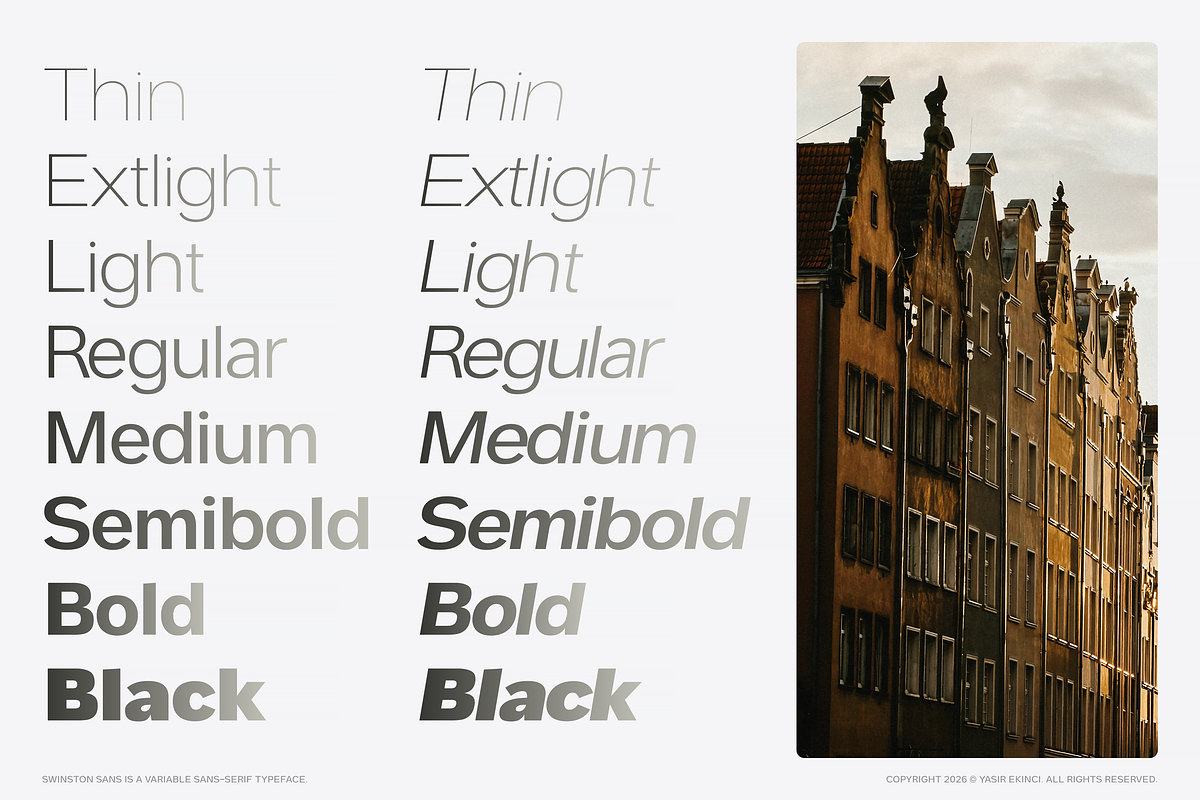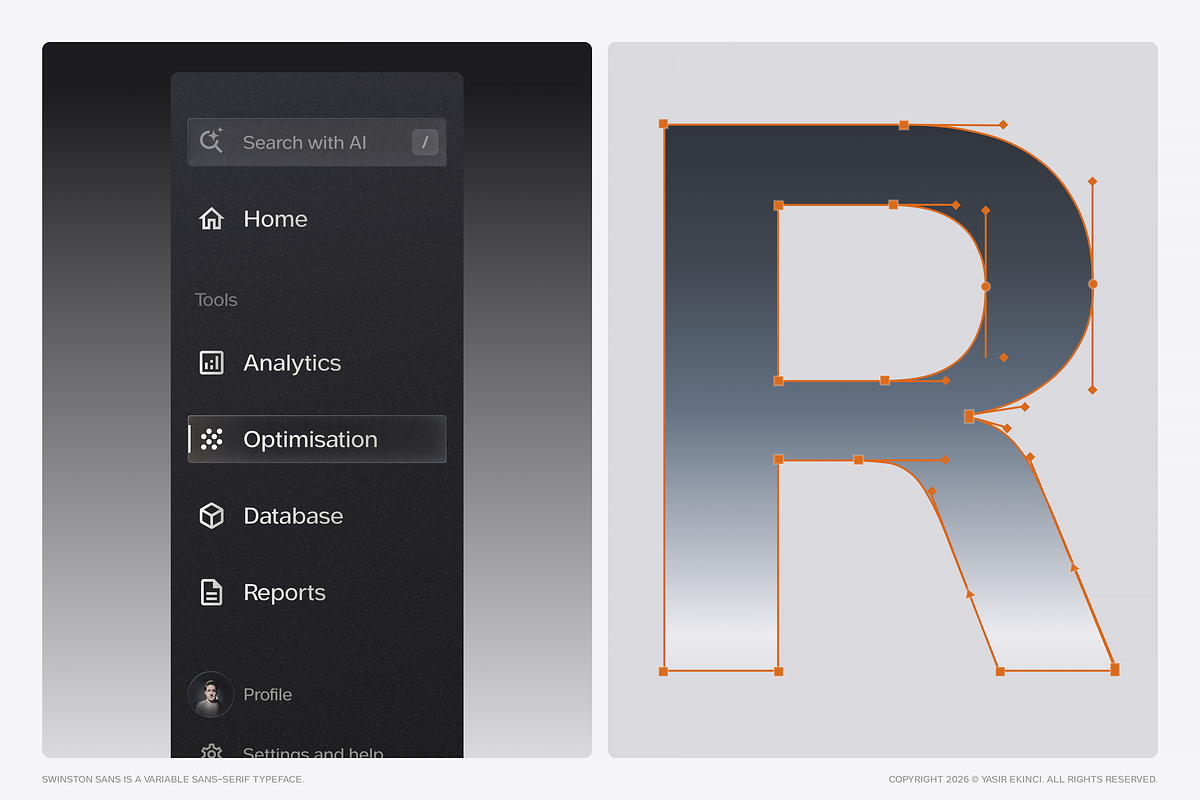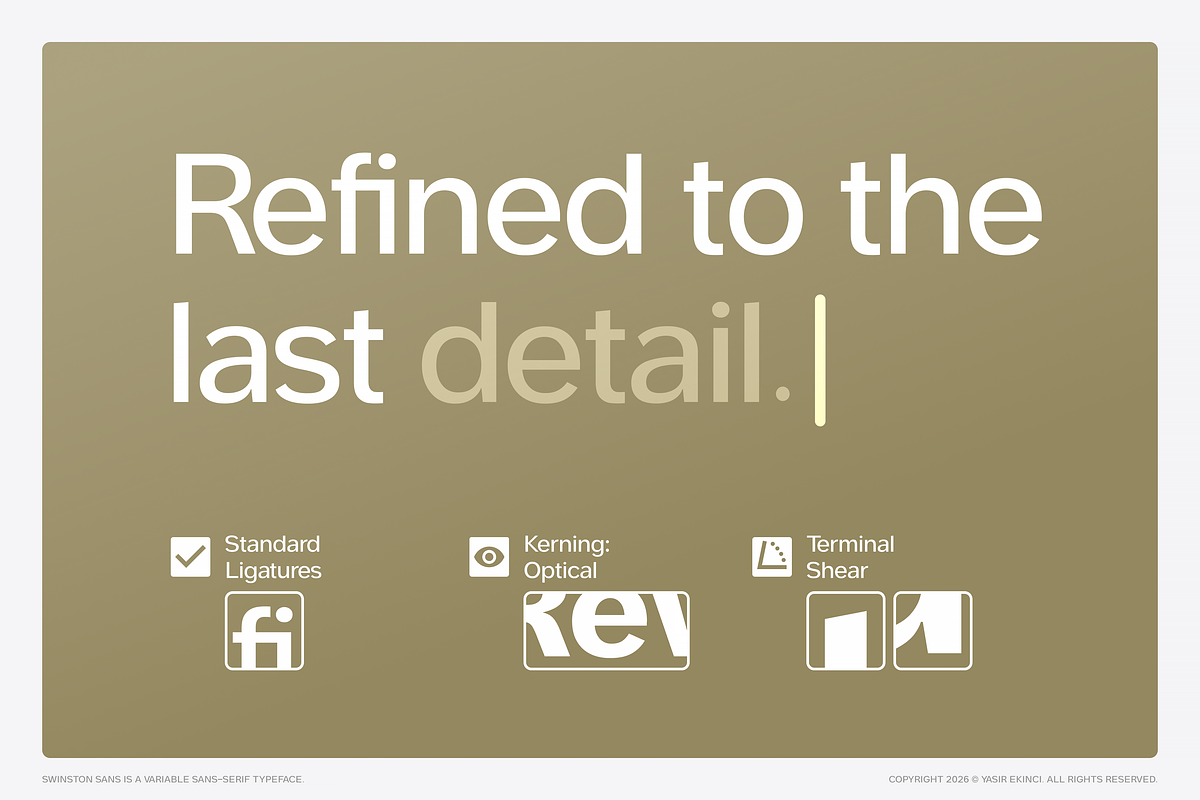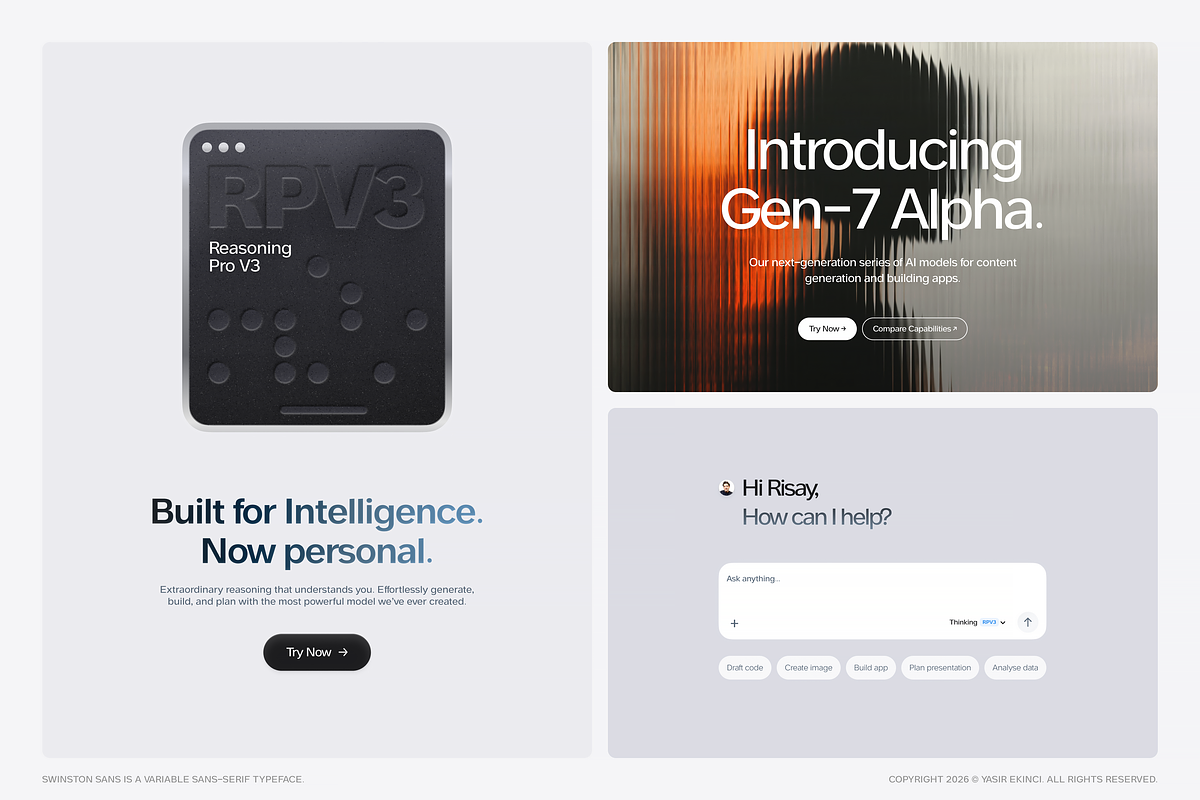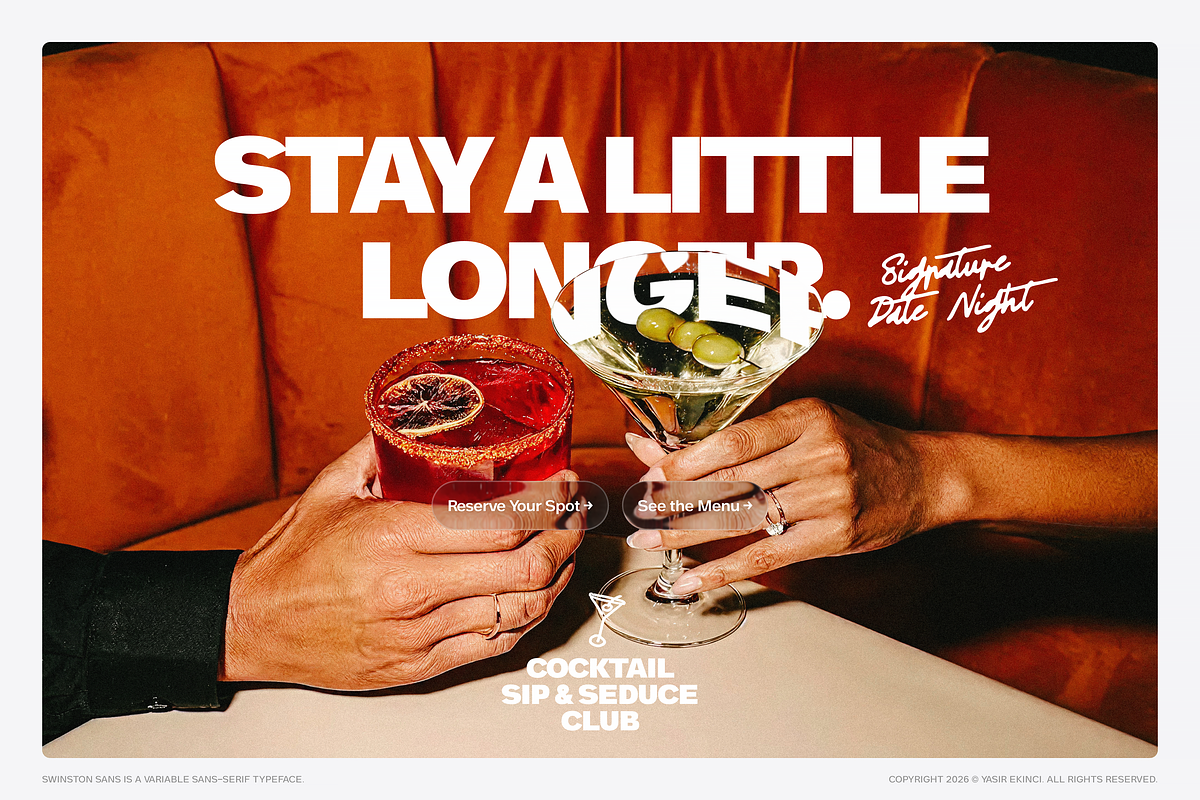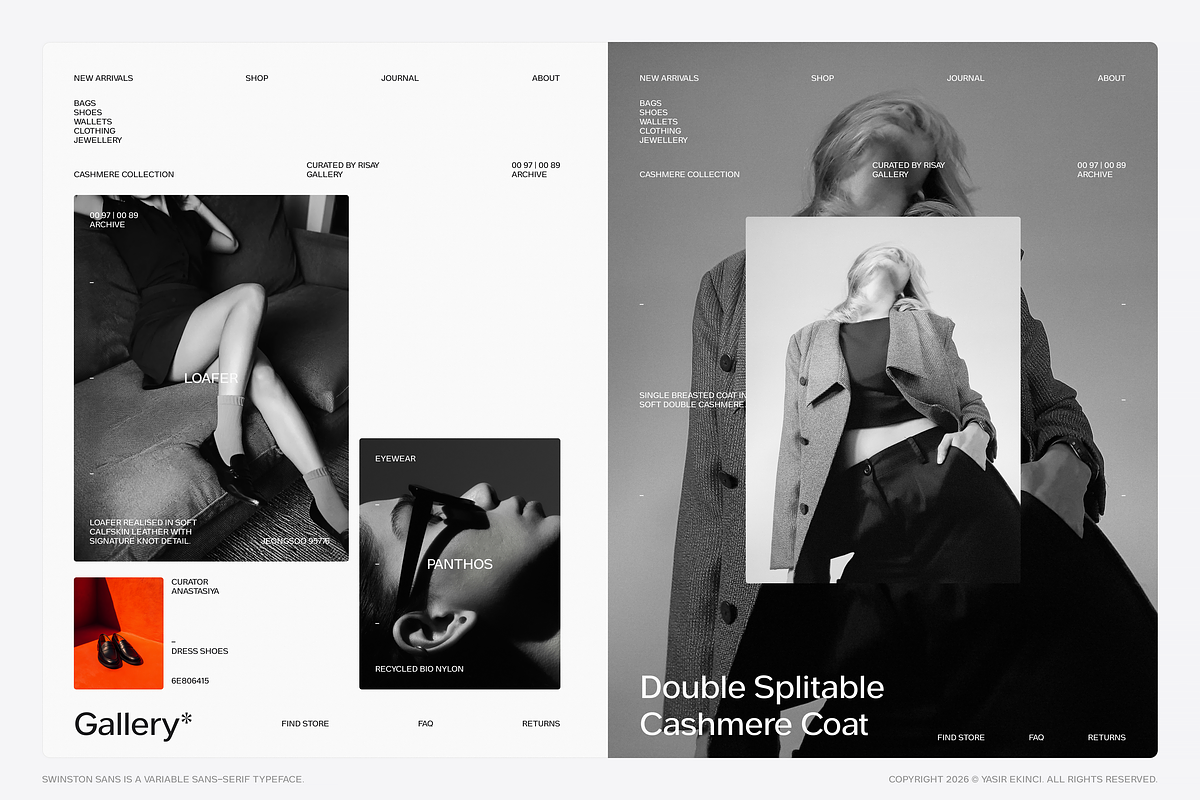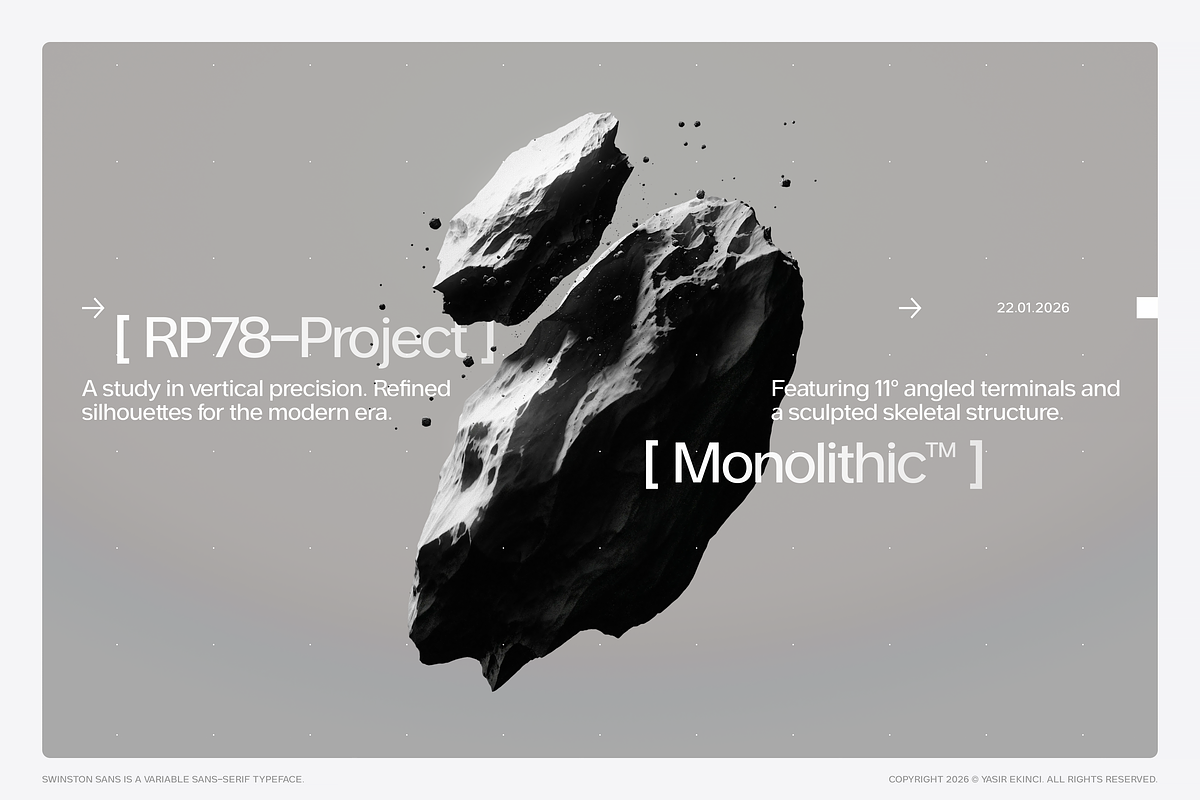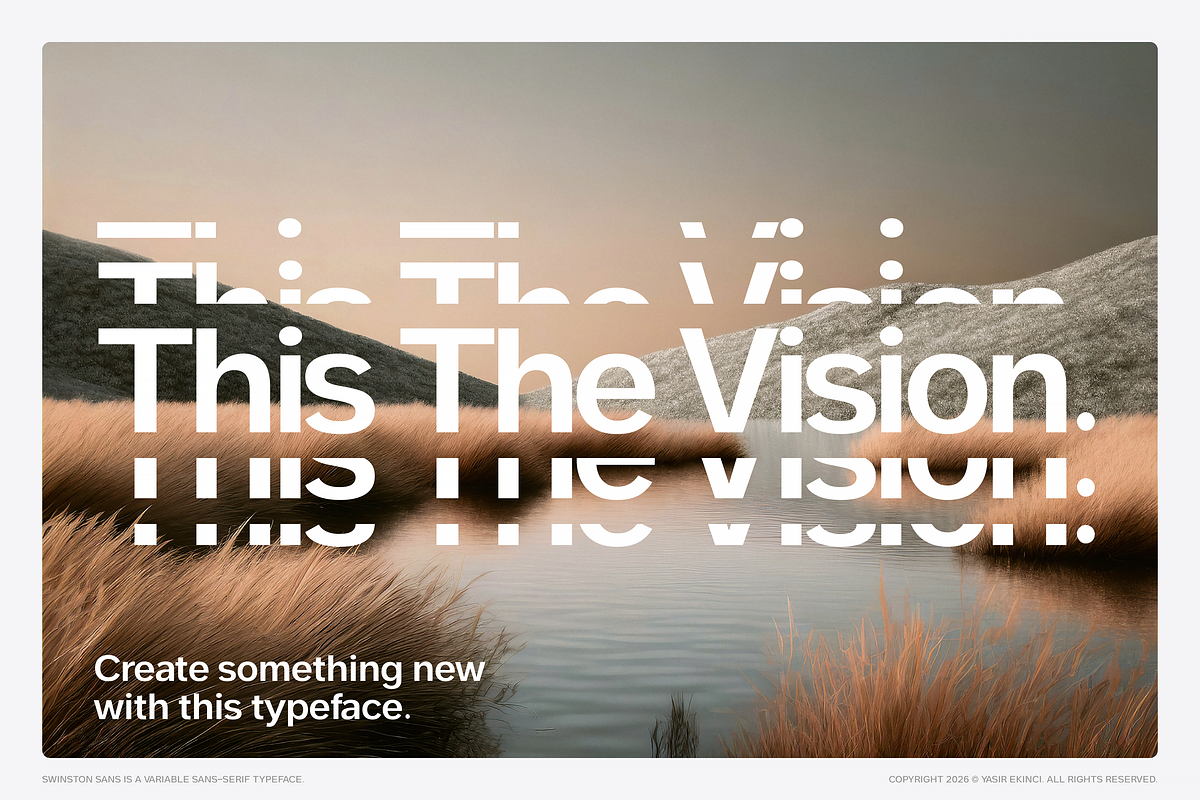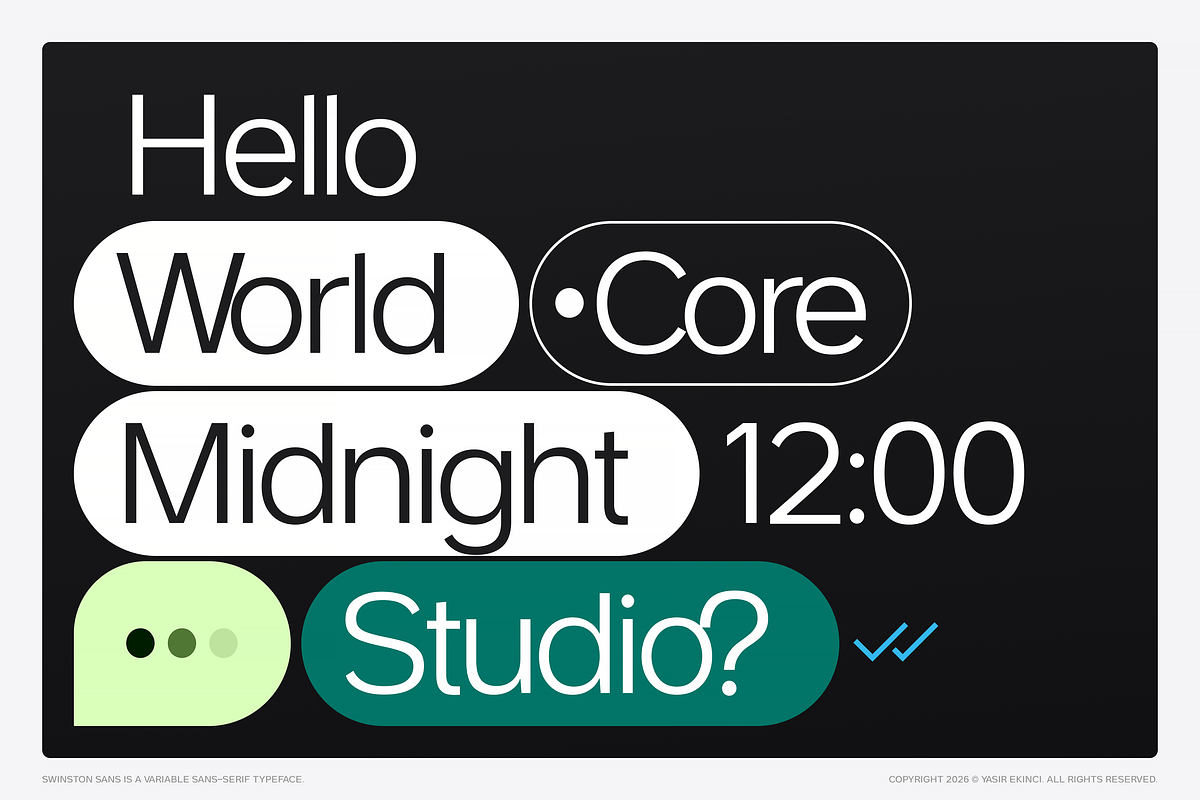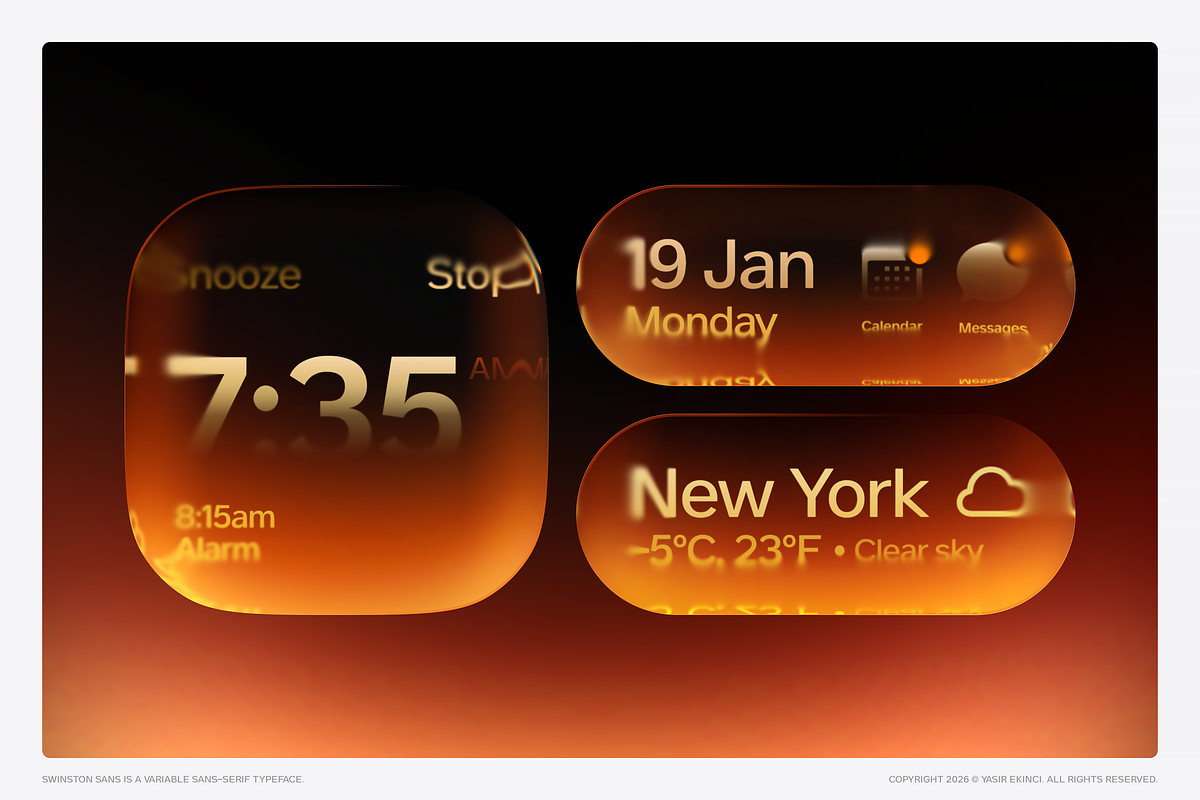
Swinston Sans Variable Typeface
The Typeface That Translates
In a digital landscape drowning in neutrality, how do you design a typeface that feels engineered enough for code, yet human enough for conversation? For the last decade, sans-serif typography has been dominated by invisibility. Fonts like Inter, Helvetica Now, and countless Neo-Grotesques have become the default language of digital design. They're competent. They're safe. They're everywhere. But as we enter the era of generative AI, spatial computing, and hyper-personalised digital experiences, "neutral" is no longer enough. We don't need fonts that disappear. We need fonts that translate. This is where Swinston Sans begins.
Origin Story: Three European Cities
Rotterdam — The Grid
The origin of Swinston Sans was found on a rainy Tuesday morning at a tram stop in Rotterdam. I became obsessed with the destination blinds of the RET tram lines—those stark, high-contrast signs that cut through grey fog to tell you exactly where you're going. Line E to Leidschenveen. Line 4 to Molenlaan. There's a specific beauty in these signs. They don't shout; they direct. They're designed for "glanceability"—to be read in milliseconds by passengers in motion. This is the DNA of Swinston Sans: wayfinding logic applied to digital branding.
Amsterdam — The Lean
If Rotterdam provided the upright skeleton, Amsterdam's famous "dancing houses" inspired the italics. These canal houses don't just stand—they lean. Historians call this "op vlucht" (on flight), a deliberate architectural choice. Swinston Sans Italic doesn't just slant—it leans with intention. Every curve was drawn to feel like those canal houses: slightly precarious, undeniably alive, unmistakably purposeful.
Lisbon — The Density
Lisbon taught me about working in tight spaces. Watching the iconic yellow Tram 28 squeeze through impossibly narrow streets, I engineered Swinston to thrive in density. Generous x-height, open apertures, carefully balanced counters—this typeface remains legible at 8pt on a smartwatch, yet commands attention at 120pt on a billboard.
A Shapeshifter Built for the Variable Age
Swinston Sans isn't just a font family—it's a variable typeface system designed to stretch, compress, and transform across infinite possibilities. By manipulating its variable weight axis (from Thin to Black) and slant axis (from Roman to Italic), the typeface morphs from functional utility into expressive display typography. One moment, it's the best font for AI startups presenting complex data dashboards. Next, it's setting luxury editorial spreads. Then it transforms into bold, kinetic display type for music festivals or streetwear brands. This versatility isn't accidental. It's engineered. Every weight, every variation, every optical adjustment was crafted to solve real design problems across digital and print applications.
Technical Specifications
- Variable Font Technology Full variable font with comprehensive weight axis (100–900) and slant axis (0–12°), giving you infinite typographic control within those parameters.
- Character Set Extended Latin with full diacritical support for 200+ languages, ensuring true global reach for your projects.
- OpenType Features Stylistic alternates, tabular figures for perfect alignment, true-drawn fractions, properly designed superscript and subscript characters.
- Screen Optimisation Meticulously optimised for digital rendering with careful hinting and optical adjustments that ensure clarity across all contexts, from retina displays to standard resolution monitors.
- Design System Ready Integrates seamlessly into modern design and engineering pipelines. Perfect for design systems, brand guidelines, and design tokens.
- Tech & Startups UI/UX design, dashboard interfaces, SaaS products, fintech applications, data visualisation, mobile apps
- Branding & Identity Corporate identity systems, brand guidelines, presentation decks, marketing materials, packaging design
- Editorial & Publishing Magazine layouts, editorial design, book typography, digital publishing, blog design
- Web & Digital Website design, web applications, responsive interfaces, email templates, social media graphics
- Display & Advertising
Posters, billboards, environmental graphics, signage systems, advertising campaigns
Why Swinston Sans?
- Unmatched Versatility — One variable font that genuinely replaces dozens of static fonts in your library, eliminating weight bloat and licensing complexity while giving you infinite precision.
- European Design Heritage — Inspired by Rotterdam's clarity, Amsterdam's rhythm, and Lisbon's vitality. This isn't typeface design by algorithm—it's rooted in actual places and lived experience.
The Bottom Line Different enough to be noticed. Familiar enough to feel right. Versatile enough to be the only sans serif system you'll need. This is the typeface for designers who don't just follow trends—they set them.